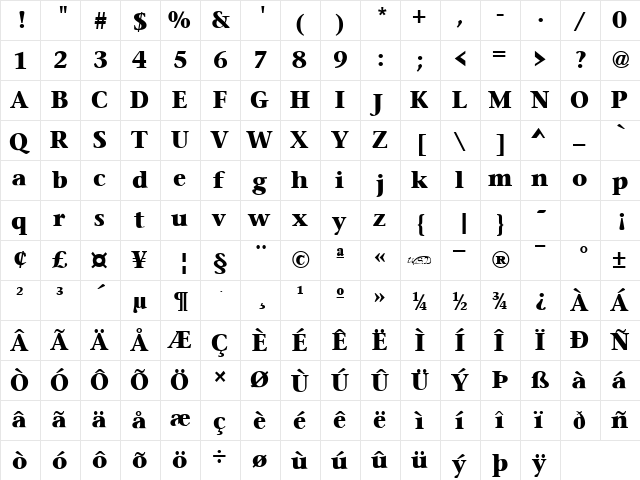
PrudentialHeavy normal
Design Context for PrudentialHeavy Typeface
PrudentialHeavy takes a measured approach to typography — its balanced proportions and neutral character make it a reliable workhorse for both digital and print work.